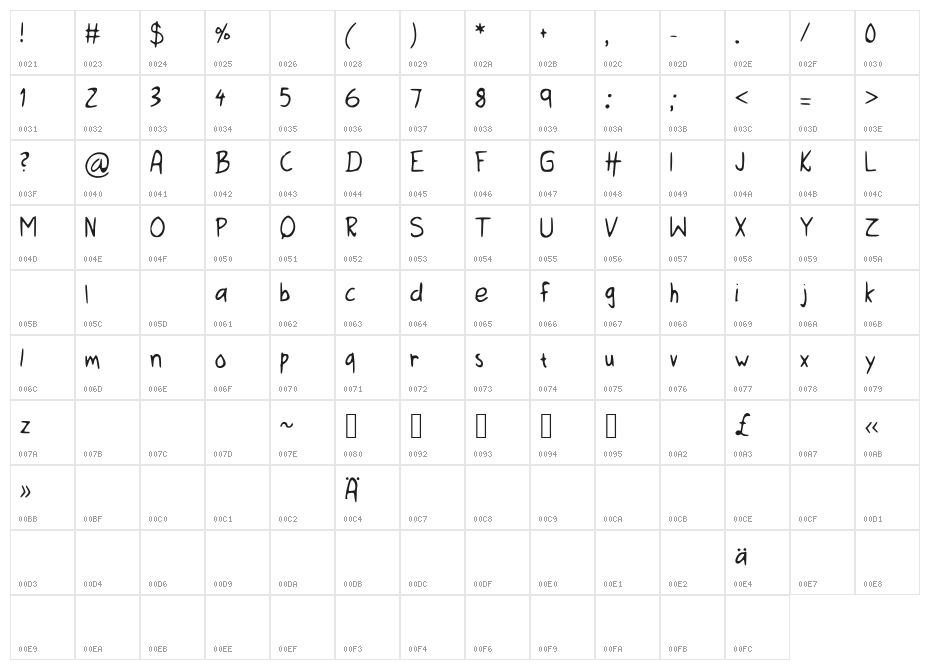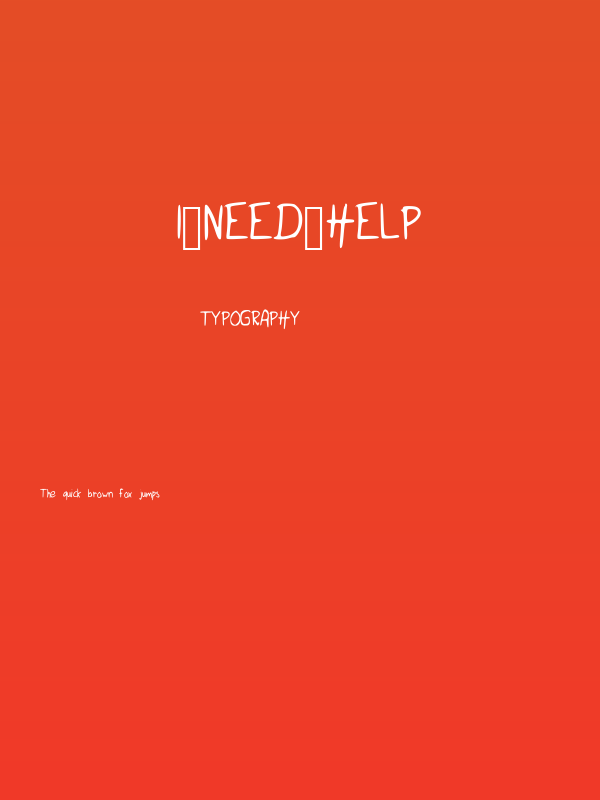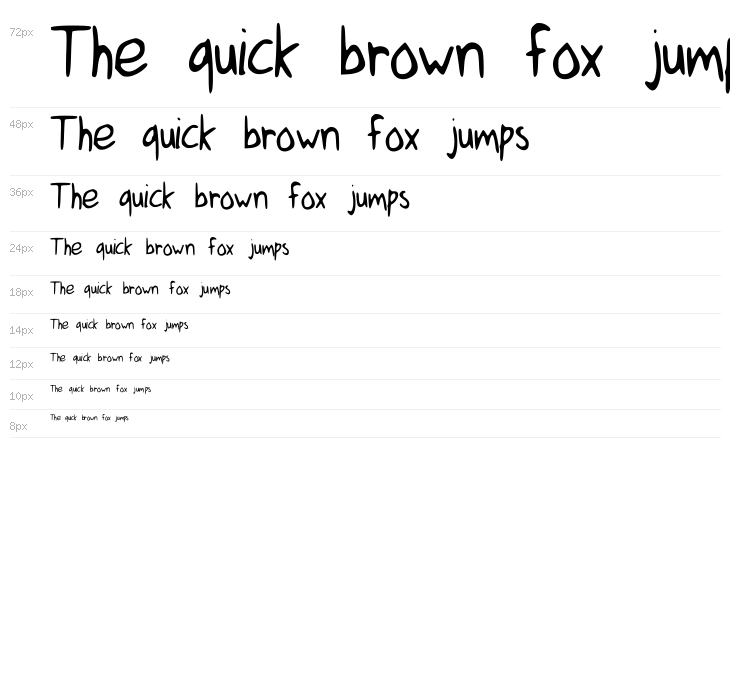
I_NEED_HELP Font
I_NEED_HELP Description
This playful and casual handwritten style font features a relaxed and informal appearance, with slightly irregular strokes that give it a natural and organic feel. The uppercase and lowercase letters maintain a consistent flow, while the numbers and special characters complement the overall style. The font's rounded edges and smooth curves enhance its approachable and friendly character, making it ideal for projects that require a personal touch. Its legibility is maintained across different sizes, ensuring versatility in various applications.
| Use Case | Headlines, Informal text, Personal projects |
| Proposed Projects | Ideal for greeting cards, children's books, personal blogs, and informal branding projects. |